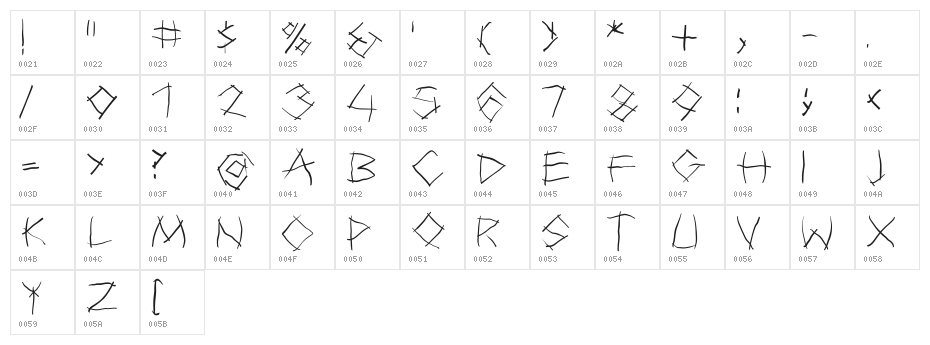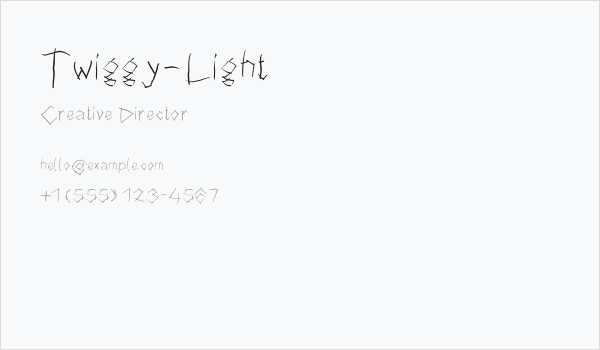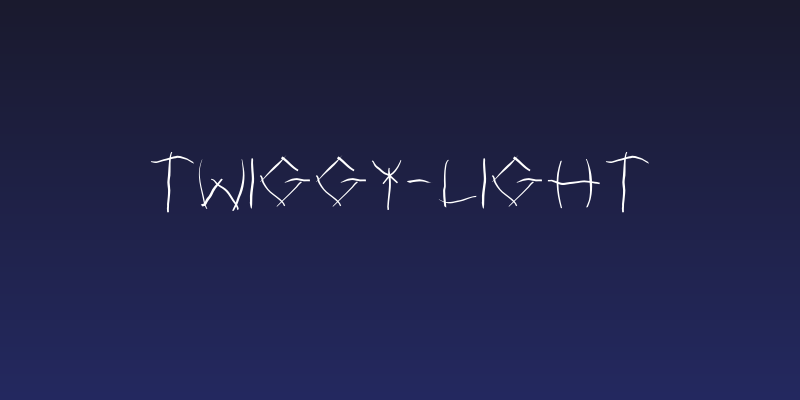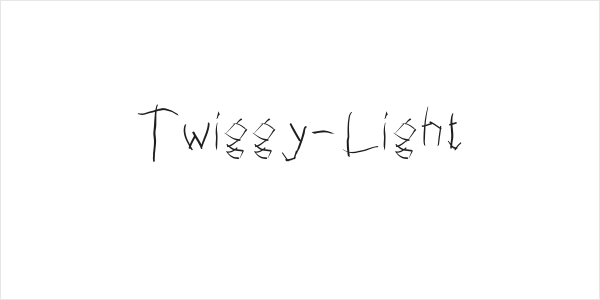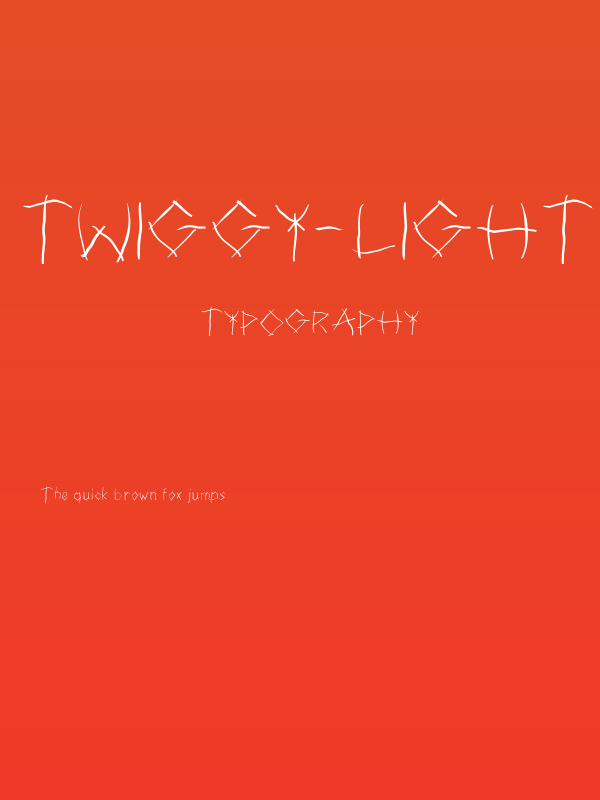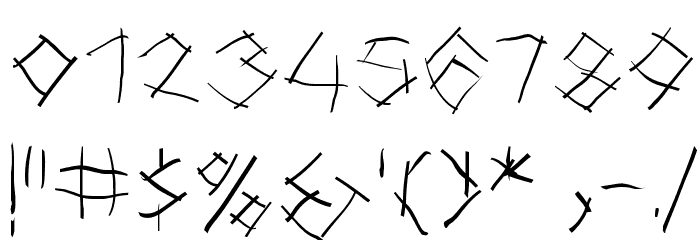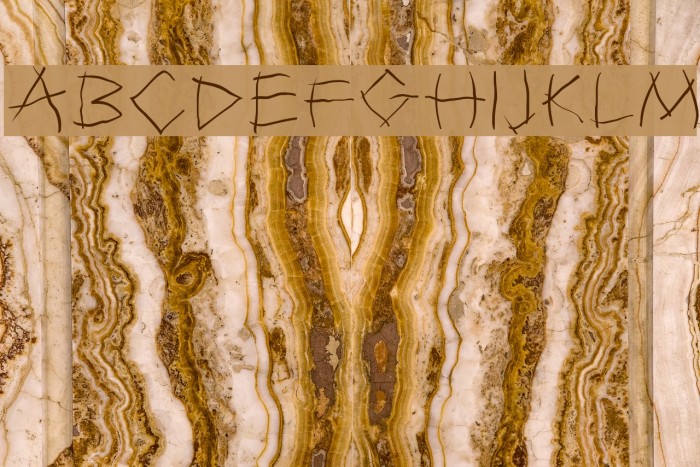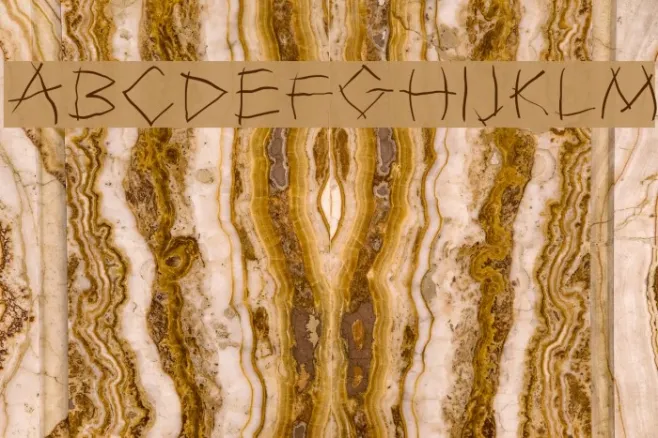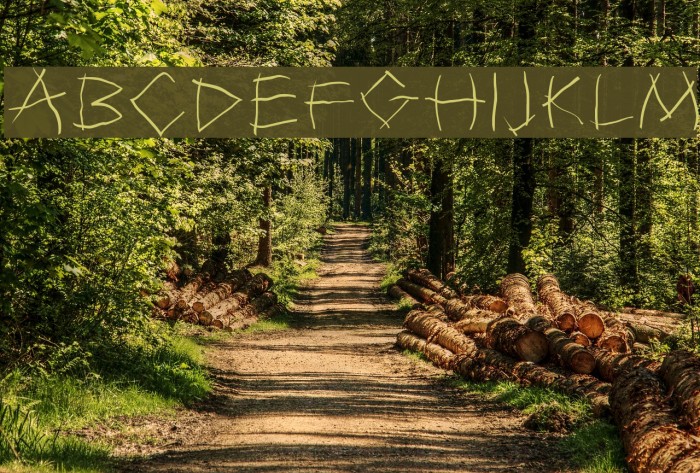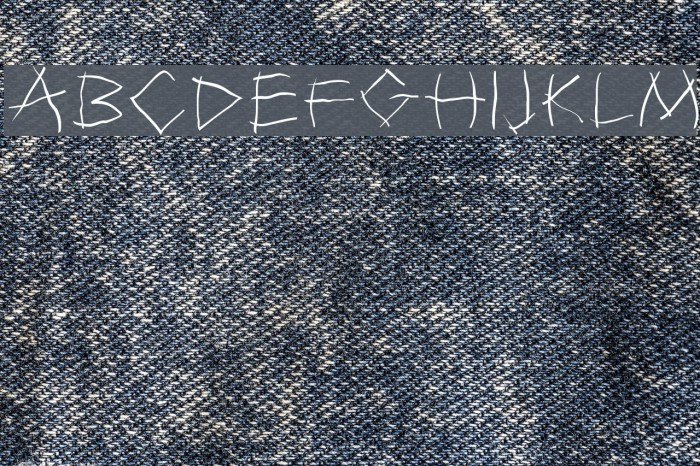
Twiggy-Light Font
Twiggy-Light Description
This font features a unique, twig-like design that gives each character a natural, organic appearance. The strokes mimic the irregular, angular shapes of twigs, creating a rustic and earthy feel. The letters are distinct and slightly whimsical, with varying stroke thickness that adds to the hand-drawn aesthetic. The uppercase and lowercase letters maintain a consistent style, while the numbers and special characters follow the same twig-inspired theme. This font is perfect for projects that require a touch of nature or a handcrafted look.
| Proposed Projects | Ideal for nature-themed designs, eco-friendly branding, rustic wedding invitations, and artistic projects. |